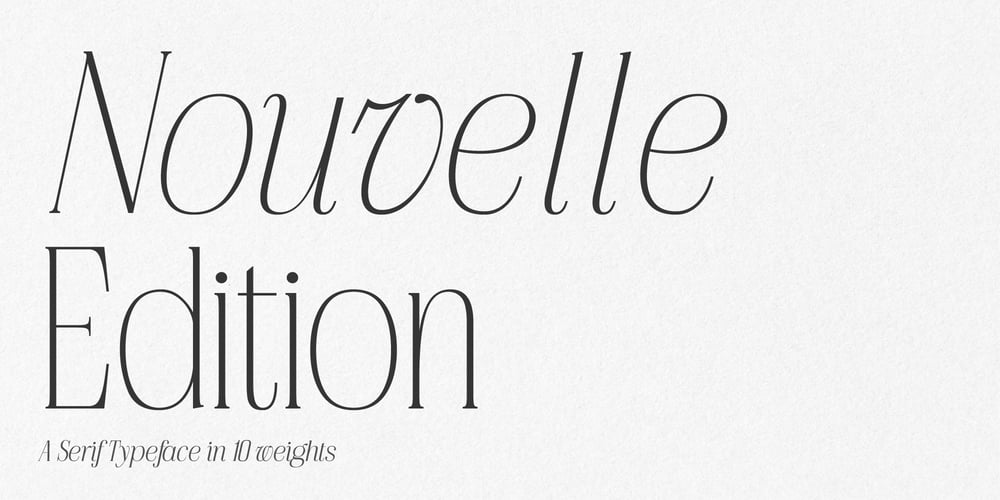
Nouvelle Edition
Nouvelle Edition font
Nouvelle Edition Font Family was designed by Zak M and published by Prestige Artsy Studio. Nouvelle Edition contains 10 styles and family package options. Nouvelle Edition is a refined serif typeface that blends classic elegance with modern sophistication, making it perfect for editorial design, luxury branding, and high-end typography. With five weights—Thin, Light, Regular, Medium, and Bold—alongside beautifully crafted italics, it offers versatility for both display and body text. Its high contrast, graceful curves, and delicate yet assertive serifs create a timeless appeal, ideal for magazines, book covers, fashion campaigns, and premium packaging. Designed with extended Latin support, Nouvelle Edition ensures seamless multilingual use, delivering effortless sophistication and editorial finesse in every application.